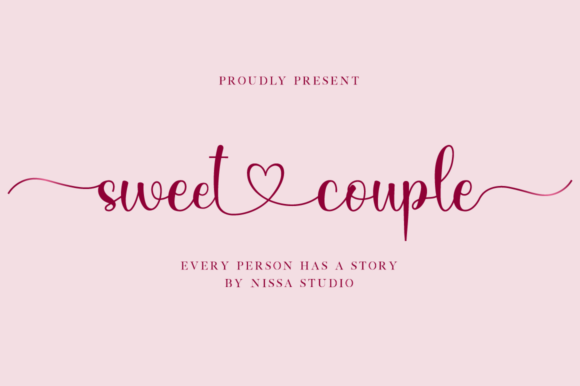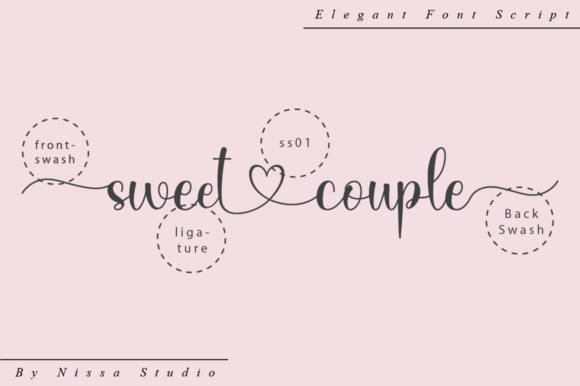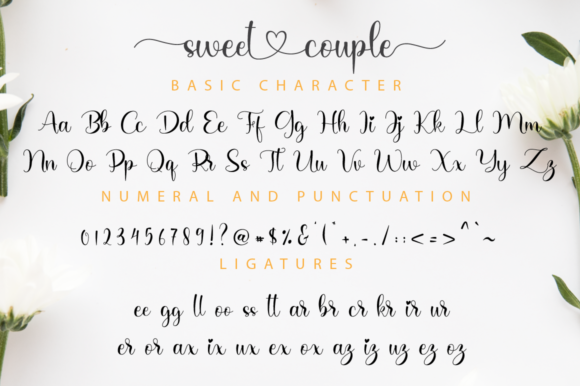
About Sweet Couple Font
Sweet Couple is a beautiful combination of timeless elegance and authentic calligraphy. It’s perfect for wedding invitations, beautiful stationary art, eye-catching social media posts, and cute greeting cards.